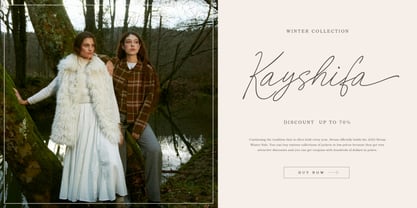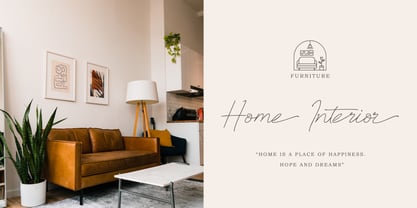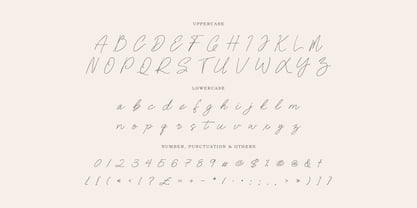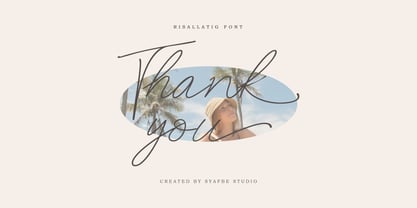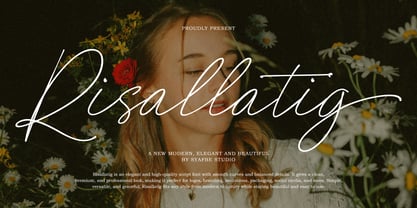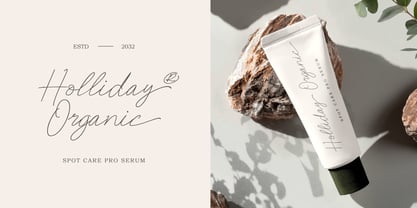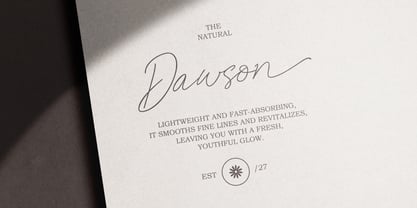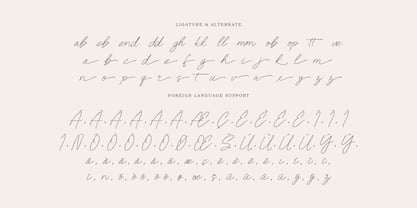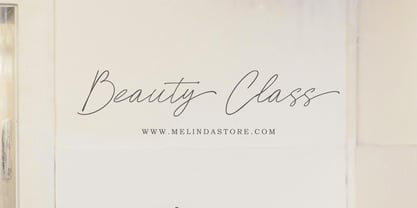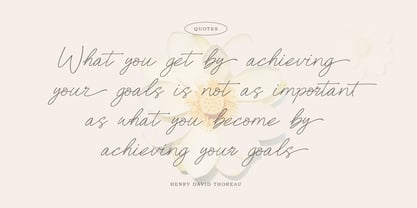
Risallatig
by Syafbe
The Risallatig Font Family was designed by Syafwan Mus and published by Syafbe. Risallatig contains 1 styles. More about this family
Risallatig is not merely a font but a stroke of emotion translated into form. Each curve feels like a calm breath—smooth, elegant, and controlled. Its philosophy is simple: true beauty does not need to shout; it captivates through detail. That is why Risallatig is crafted with exceptional attention to quality—balanced strokes, refined proportions, harmonious flow, and polished finishing—resulting in a premium, clean, and professional appearance across any medium. Its strength also lies in its versatility. Risallatig is perfect for brand logos, personal branding, wedding invitations, product packaging (fashion, cosmetics, perfume), social media content, posters, promotional banners, certificates, digital signatures, watermarks, website headers, and editorial designs. Whether your concept is romantic, modern, minimalist, or luxurious, Risallatig adapts beautifully while maintaining its signature character—graceful, sophisticated, and unforgettable at first glance.